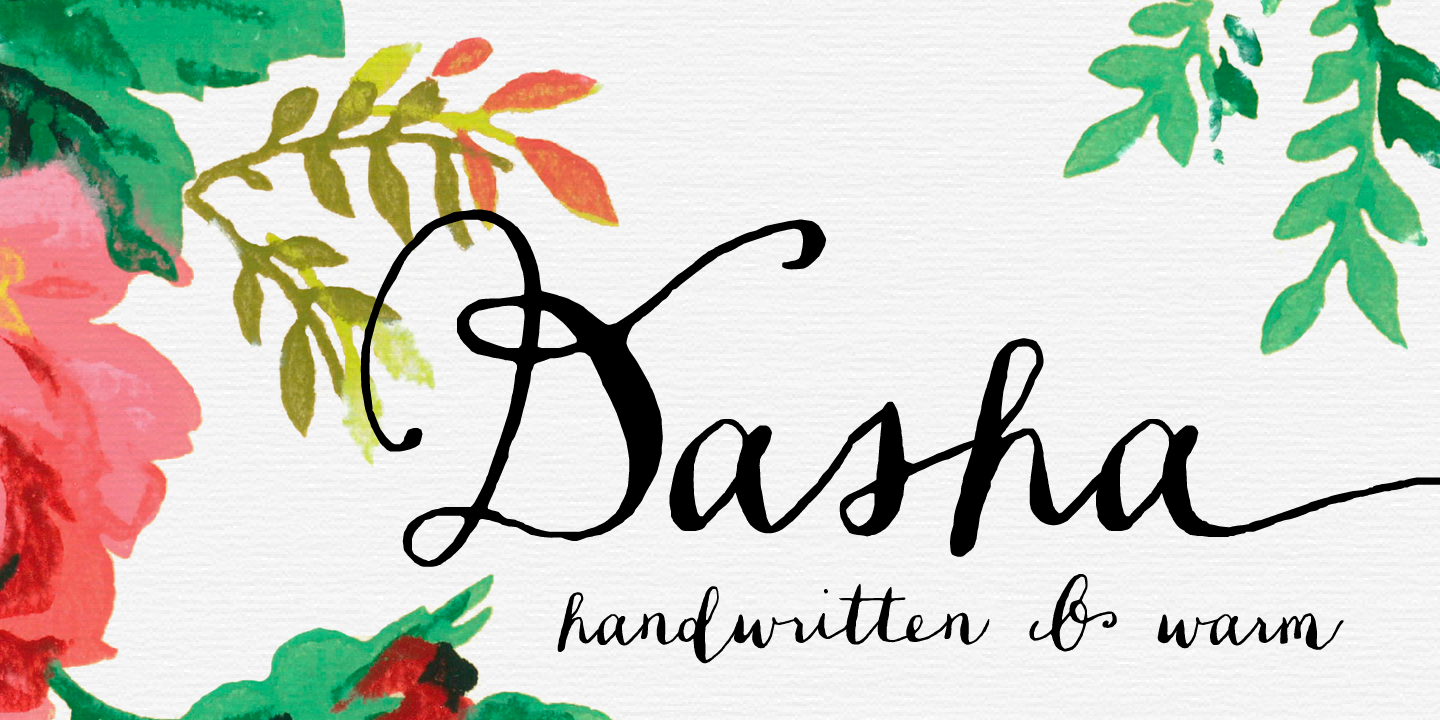
Dasha Font is perfect for fashion brand logos, beauty product packaging, lifestyle magazine headers, social media content, feminine blog designs, cosmetic advertising, boutique signage, elegant invitations, luxury retail branding, and modern calligraphy projects. Its sophisticated style makes it ideal for brands targeting discerning, style-conscious audiences.
What makes Dasha Font exciting is its perfect blend of contemporary elegance and playful sophistication that captures modern femininity. The font features graceful curves, balanced proportions, and distinctive character details that create memorable visual impact. Its refined personality strikes the perfect balance between approachable warmth and luxury appeal, making it versatile for both high-end and accessible brand positioning. The carefully crafted letterforms ensure exceptional legibility while delivering the sophisticated charm that modern consumers expect from premium brands.
Dasha Font comes in multiple styles including Regular, Bold, Light, Italic, and Script variations. Each family member maintains the signature elegant character while offering diverse applications for comprehensive brand systems. The complete font family includes stylistic alternates, special ligatures, and decorative elements that enhance creative flexibility and brand personality expression.
Whether you're creating fashion campaigns, beauty brands, or lifestyle products, Dasha Font Free Download delivers the contemporary elegance that resonates with today's sophisticated consumers. The font's versatile nature works beautifully across digital and print applications, from website headers to product packaging. Its extensive character support includes international accents and special symbols, making it perfect for global brands seeking to maintain consistent elegance across diverse markets and cultural contexts.